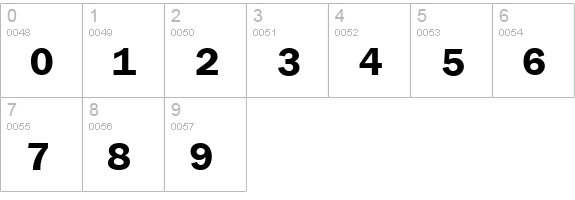
Frankfurt Fed font is a stunning typeface that exudes elegance and sophistication. With its clean lines and modern design, this font is versatile and perfect for a wide range of design projects. The sleek and polished look of Frankfurt Fed font makes it ideal for branding, advertising, and editorial design. What sets Frankfurt Fed font apart is that it is available for free. That's right, you can download this beautiful font at FontsMarket.com without any cost. Whether you're a professional designer looking to add a fresh font to your collection or a hobbyist creating personal projects, Frankfurt Fed font is a fantastic choice that won't break the bank. Don't miss out on the opportunity to enhance your designs with this exceptional font – download Frankfurt Fed for free today at FontsMarket.com!